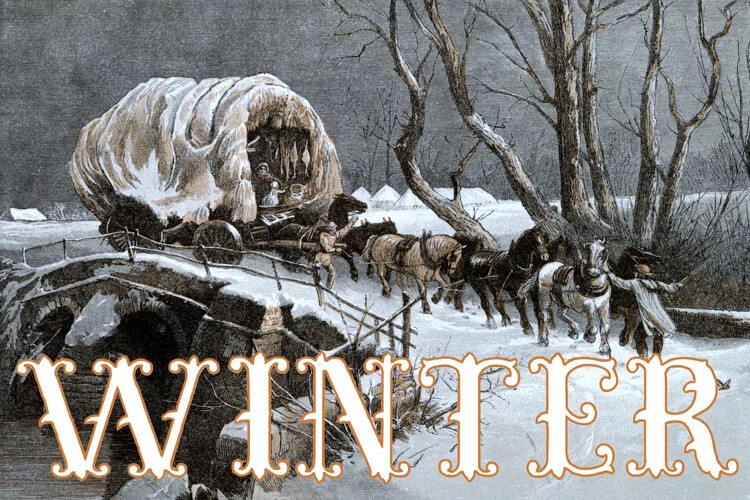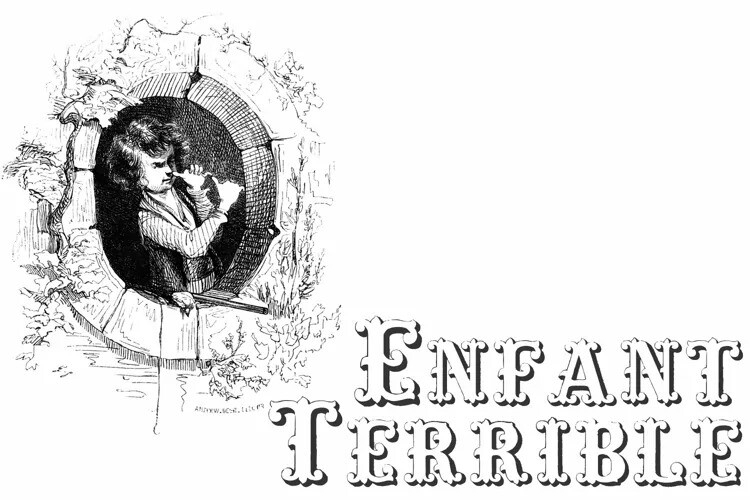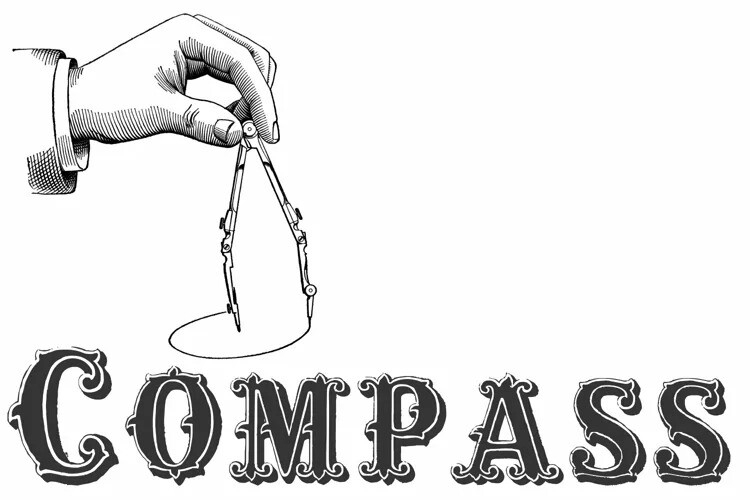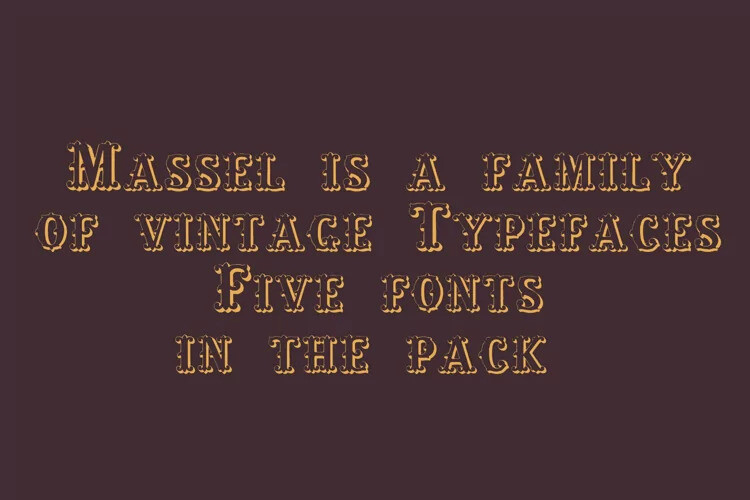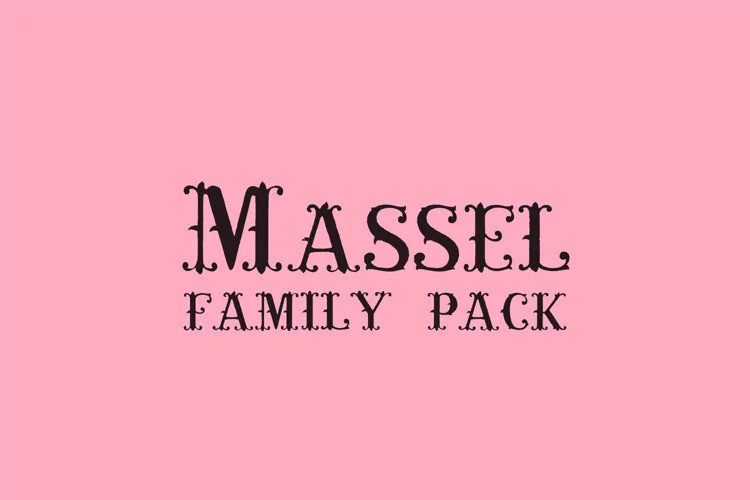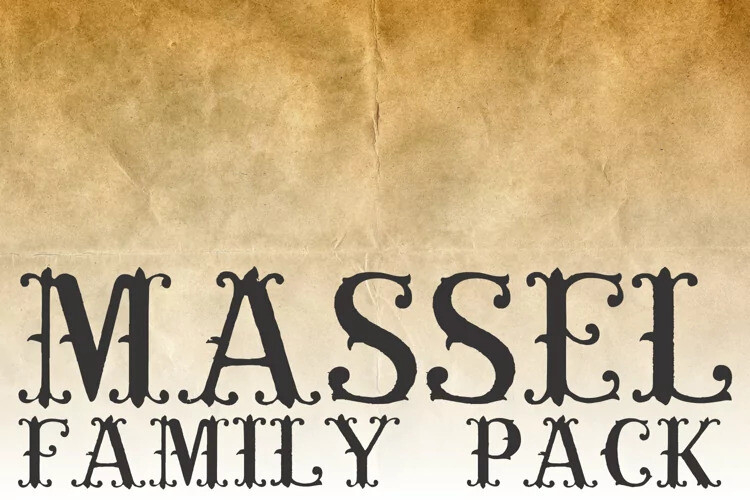
HomeBlackletter FontsMassel Family Pack Font Blackletter Fonts Massel Family Pack Font FacebookXPinterestWhatsApp Massel Family Pack Font Poster 2 Massel Family Pack Font Poster 3 Massel Family Pack Font Poster 4 Massel Family Pack Font Poster 5 Massel Family Pack Font Poster 6 Massel Family Pack Font Poster 7 Massel Family Pack Font Poster 8 About Massel Family Pack Font Massel is a family of tuscan/western style blackletter fonts. DOWNLOAD ON CREATIVE FABRICAThis font is sold and delivered by Creative Fabrica. Font Canyon may earn a commission if you buy through this link. People also explored Lillylucky Font Southside Script Font Mezura Font By Me Font Sienthas Font Slab Serif font Circus Freak Font Opelika Font Ship Font Jeffriana JF 306 0 TagsMassel Family Pack Font Previous articleMoxy Rush FontNext articleHigh Prosess Font LEAVE A REPLY Cancel reply Comment: Please enter your comment! Name:* Please enter your name here Email:* You have entered an incorrect email address! Please enter your email address here Website: Save my name, email, and website in this browser for the next time I comment. Personal Use Free Sehat Selalu Personal Use Free Read more about this font Mellow Personal Use Free Read more about this font Bridgetown Font Personal Use Free Read more about this font Kidly Personal Use Free Read more about this font BLOG To increase your work productivity, choose the most readable fonts. In today's fast-paced work environment, where digital communication and information consumption are integral to our daily routines, the choice of fonts can significantly impact... How to Cut Any Font on Cricut: Convert a Font to SVG (Free) Using Fonts in Digital Marketing: Tips to Strengthen Your Brand Identity Fonts That Capture the Spirit of New York City